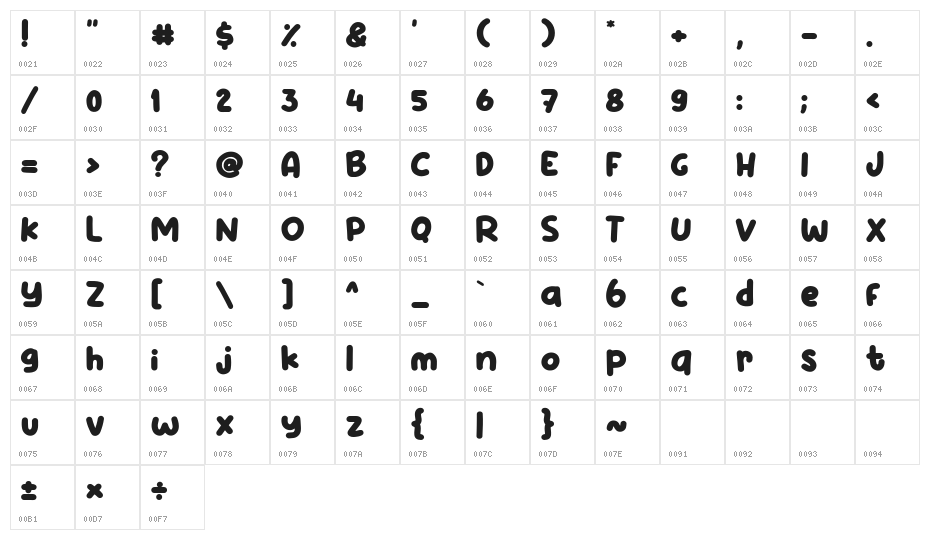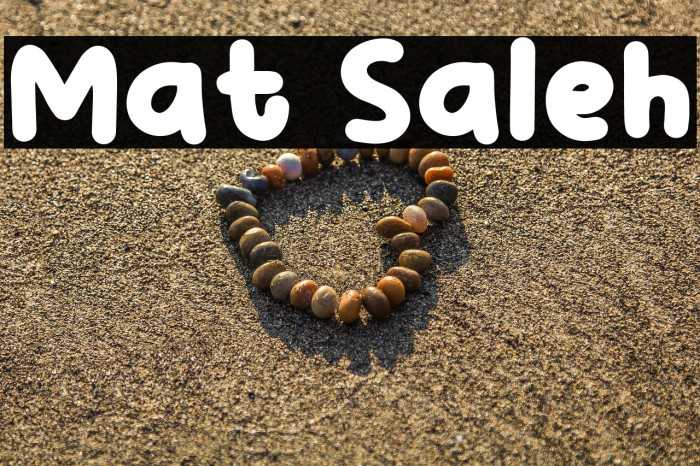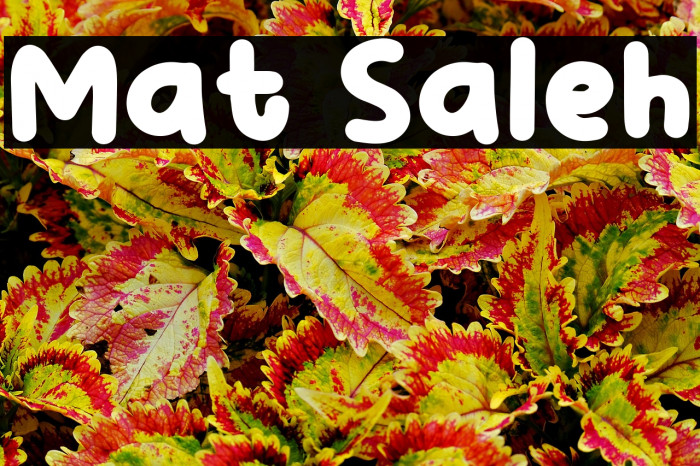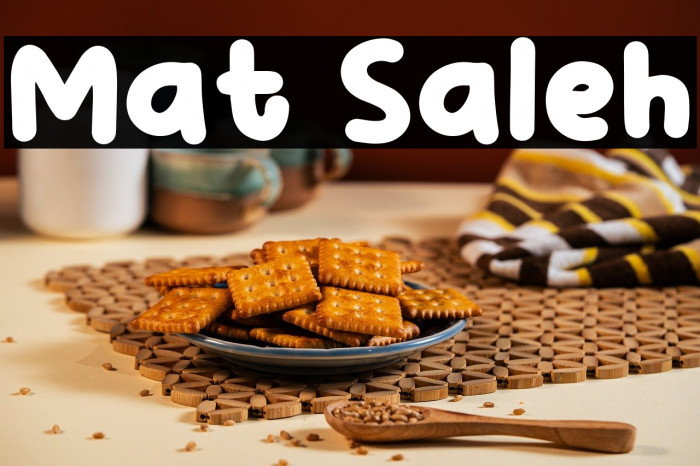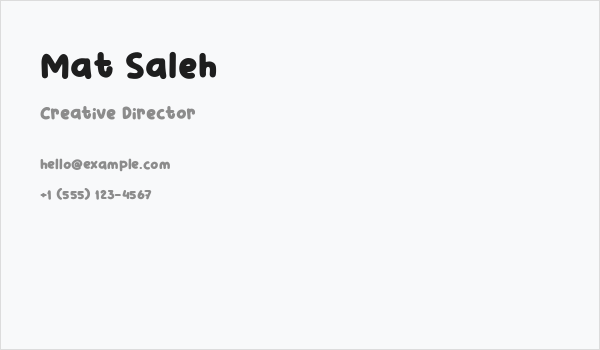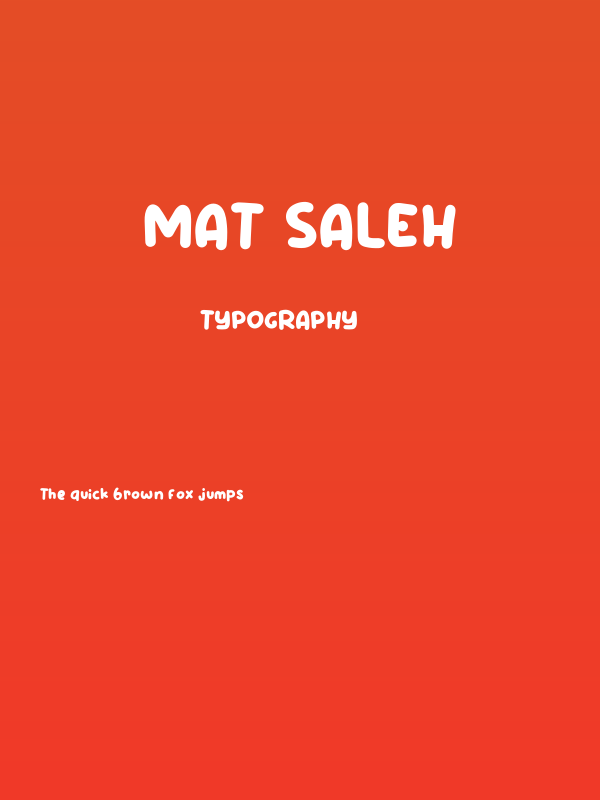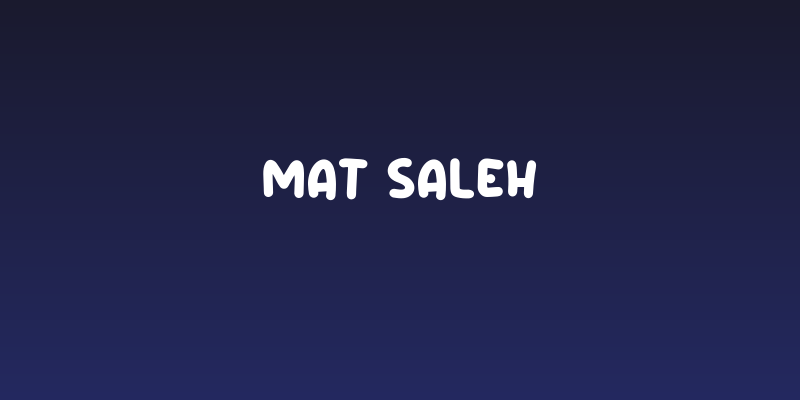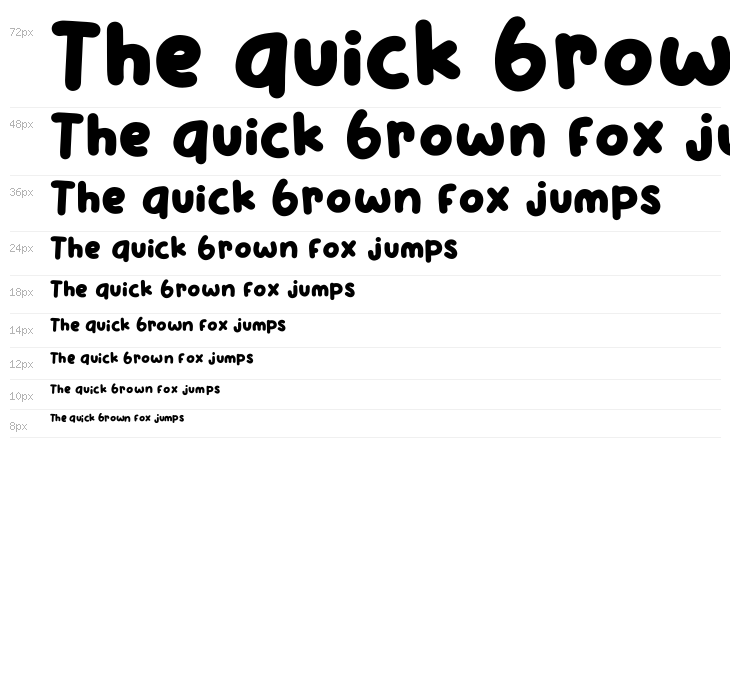
Mat Saleh Font
Mat Saleh Description
This playful and bold font features rounded, bubbly characters that exude a sense of fun and approachability. Each letter is crafted with a thick, uniform stroke, giving the font a cohesive and friendly appearance. The characters are slightly condensed, which adds to the whimsical nature of the design. The font maintains a consistent weight throughout, with smooth curves and soft edges that enhance its casual and informal style. The numerals and special characters are designed to match the playful aesthetic, making this font suitable for a variety of creative applications.
| Overall Style | Playful, Casual |
| Proposed Projects | Ideal for children's books, playful branding, party invitations, and casual social media graphics. |